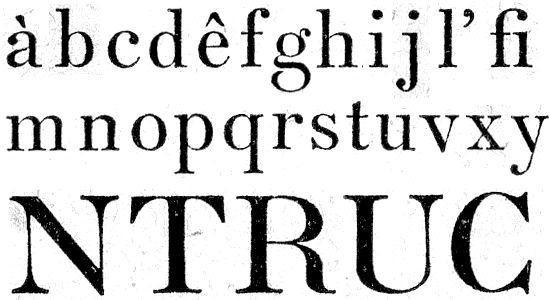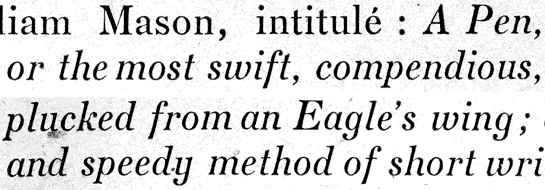
Well, Javal is conceptually exactly the reverse of the later Bauhaus and so on.
Make forms different as possible to help word shapes. Note that different doesn't mean that they seems different at actual size of their use for the reader. (Beatrice Warde globets are not far!)
I think maybe a better way to look at this (and thereby compare it to Bauhaus stuff) is letterform "essentialization". That's not a word, but you know what I mean.
> do you have more samples? Are you working on more?
Well, I have the book for [at least] another two weeks, and I'll be perusing it, although I probably won't read the whole thing - the rest of my reading list would gang up and stage a mutiny overnight. Javal shows that funky font at various sizes, but there's a lot of other strange diagrams and such too. Stay posted!
So I skimmed through Javal's book, reading some short passages, photocopying longer ones for later (who knows when...), and scanning up a few things. What might be relevant in this thread is a comparison of the two alphabets made by Dreyfuss for Javal (although it's not clear how much direct guidance he got). Except for that large sample I showed above, they're both shown reduced by a "photoengraving" method to very small sizes. The largest size is 5 point, and here's what they look like:
Javal concludes by saying that the first one doesn't go far enough while the second goes too far.
Tiffany, I didn't see any explicit connections made by Javal with graphic minimalism (the Bauhaus per se didn't yet exist at his time), but I still think there's some commonality there, even though as JF says their conscious directions ended up very different.
The Dreyfus' alphabets are really interesting (the top one on your last post is quite ugly indeed, but I like the bottom one). Now, why did he design them for Javal? Why is biggest size 5 pts? I suppose the size decision was very important to his research?
And wasn't Javal blind by that time (this article says he was completely blind by 1900!) ?
This is classic: "His body was cremated with the exception of his left eye, which he had promised to send to Priestly Smith upon his death."
Dreyfuss did the graphic work most probably because he was the illustrator (and a very good one, looking at his stuff in the book). I'm not sure when Javal evaluated Dreyfuss's alphabets, but I guess he must have still had enough of his vision, otherwise it would be pretty funny. The book must have come out some time afterwards*. On the other hand, Javal did continue to contribute greatly to science (including work on Braille) way after his blindness. He was da man.
* But he must have done the dedication in the book after going blind!
That's better than my handwriting, and I have 20/15 vision!
> Why is biggest size 5 pts?
I guess essentially because larger sizes are always legible if you give yourself enough time. Although Javal was the first to show that we read in saccades (and not in a flow), I don't think he -or anybody else- yet knew about boumas and such. Maybe he didn't realize that readability is distinct from legibility.
Also, the chapter containing those alphabets is called "Th
Well, at any size speed has relevance - it's all One Big Thing, with different factors pulling in different directions. Although I guess you can target speed for an optimal size as well (which would be much higher than 5).
BTW, he actually shows two versions of the second alphabet, one with shorter extenders than the one I've scanned up.
> Does he say why?
Not really. The language is vague*. I had to look up a couple of words but still can't extract any possible reasoning. The only fault he explicitly states about the second one is that it requires great illumination. The first he just says it's not innovative enough!
It's interesting, isn't it? Kind of like a missing link in the evolutionary ladder between Baskerville and Didot. Some of the glyphs are superb, and rare.
Look at the power of the "y", and the functional elegance of the "g", and the interesting skewed "v", and the small x-height. It's tempting to think yet again: "they don't make them like they used to"...
BTW, unlike the vast majority of legibility researchers, Javal had great typographic sensitivity (even though he recommended leading values most good contemporary typographers would see as too little - but I personally think whitespace is overrated these days). You can tell just by looking at the first page:
The first word of the whole book, the title "Introduction" has a footnote that's better than your average colophon!
In the footnote he says that the typeface (in three sizes) was the work of Deberny (I guess before they joined with Peignot), but on that page 226 he doesn't add anything more about it.
Being a (low) myope myself, I must agree with that paragraph. This is great:
"...our modern writings, since that of the young schoolboy until the typography more elegant, constitute an offence with the good direction and are tolerated only thanks to the secular routine which transmits them from generation to generation..." (Babelfish translation)
Fleischman–Roman
Enschedé, Ch, Harry Graham Carter, Netty Hoeflake, and Lotte Hellinga. Typefoundries in the Netherlands, from the Fifteenth to the Nineteenth Century: A History Based Mainly on Material in the Collection of Joh. Enschedé En Zonen at Haarlem. Haarlem: Stichting Museum Enschedé, 1978.
Didot Elder–Roman
Enschedé (Firm) type specimen
what happened to the mystery of the body text?
Chris (kakaze) did end up making a revival of it.